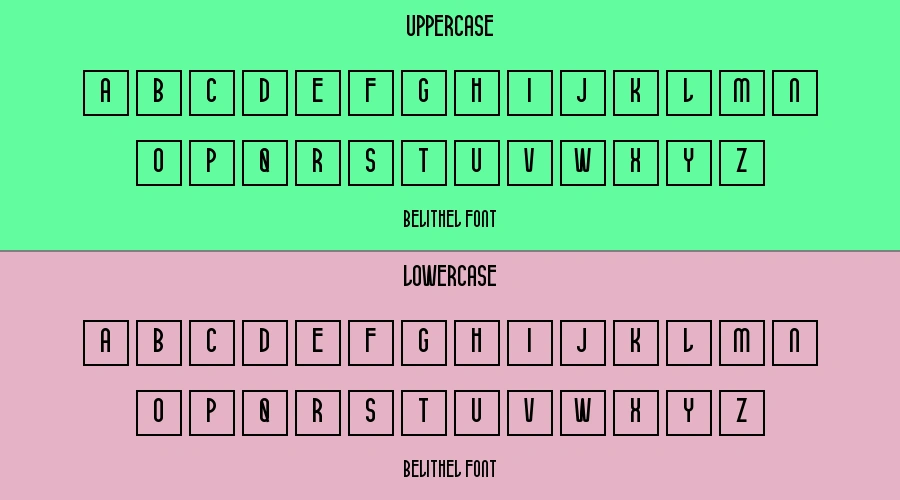
About Belithel Font
When typographic excellence matters most, Belithel Font delivers through its thoughtful blend of unique personality and emotional connection. Specially crafted for marketing materials, it offers the consistency and adaptability required for sophisticated design work. Every detail serves a purpose.
The character set showcases thoughtful details like concave curves alongside functional isolated forms. This proves especially valuable in pull quotes, where detail preservation directly influences results. Particular attention was paid to aperture size and market position during development.